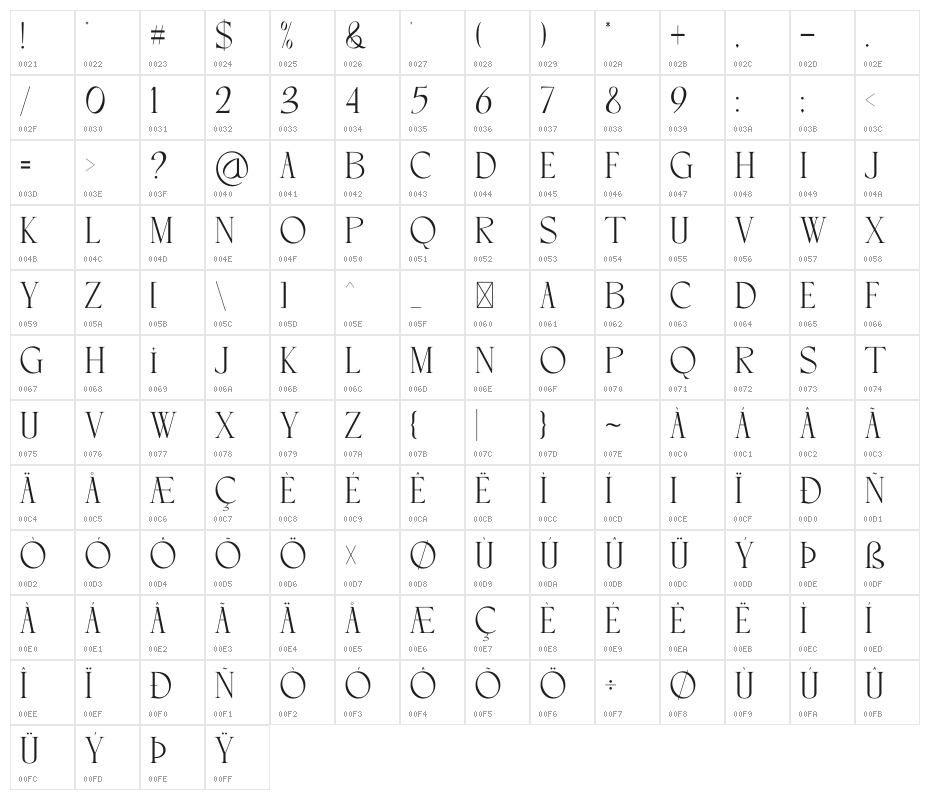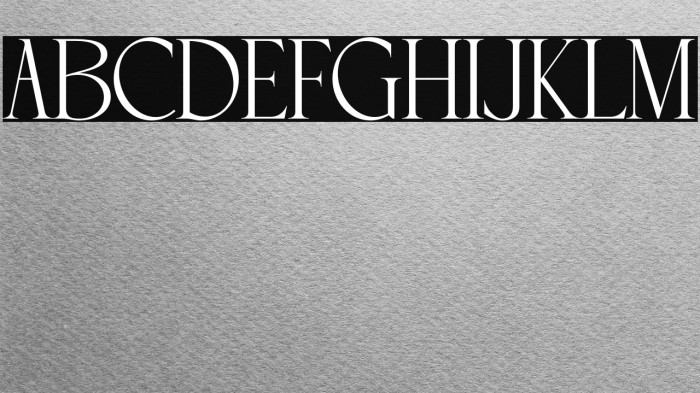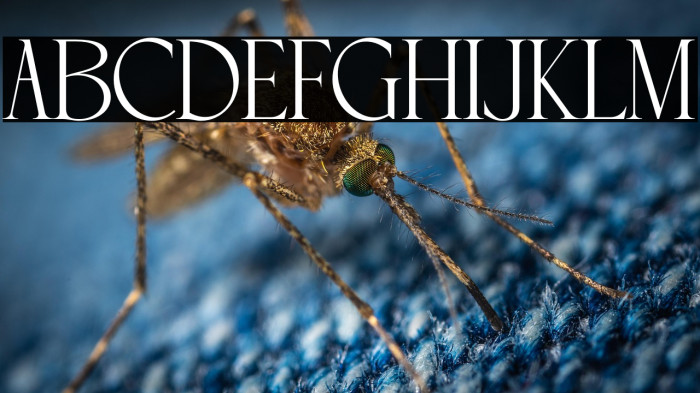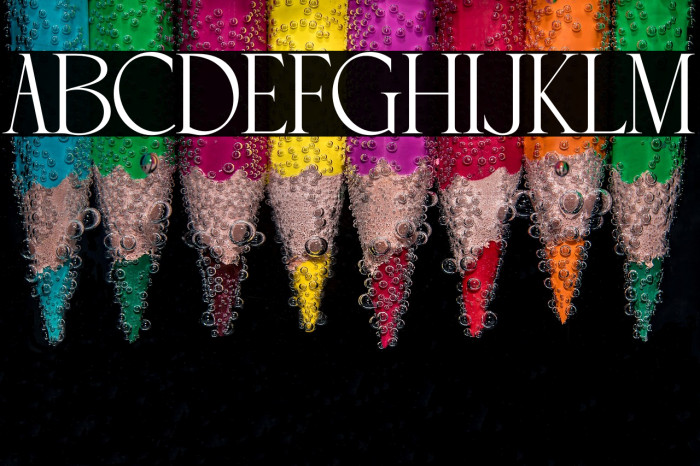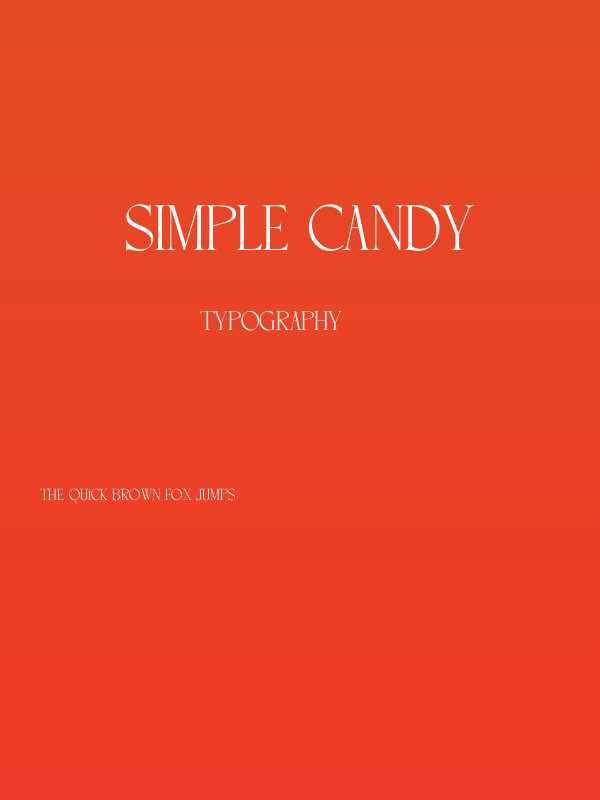
SIMPLE CANDY Font
SIMPLE CANDY Description
This font features a classic serif style with elegant and elongated letterforms. The characters exhibit a high contrast between thick and thin strokes, giving it a sophisticated and refined appearance. The serifs are sharp and pronounced, adding a touch of formality and tradition. The uppercase letters are tall and commanding, while the lowercase letters maintain a consistent flow with slightly rounded edges. The numerals are distinct and align well with the overall design, ensuring readability. Special characters are crafted with the same attention to detail, making them suitable for various applications.
| Overall Style | Classic |
| Use Case | Headlines, Body text, Logos |
| Proposed Projects | Ideal for use in editorial design, book covers, formal invitations, and luxury branding. |